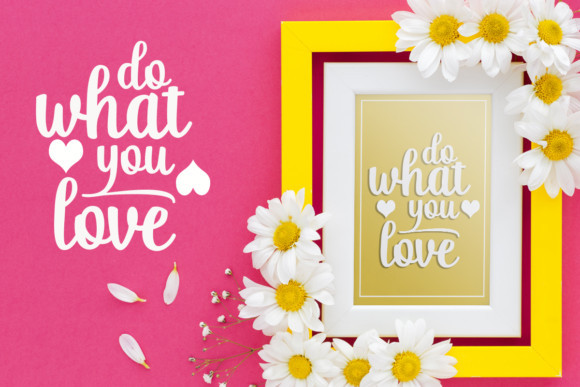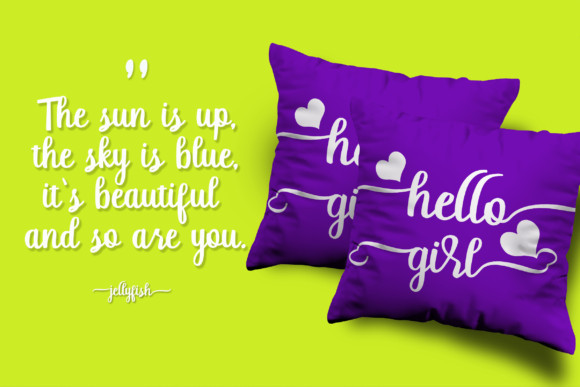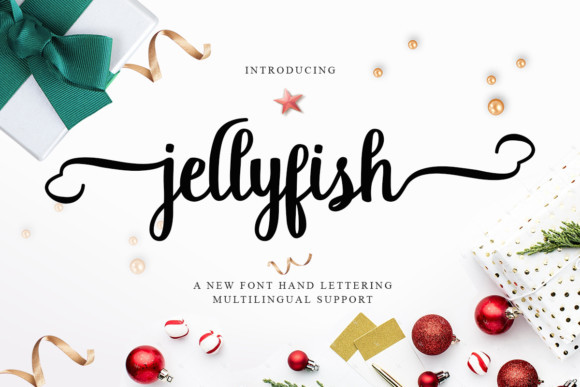
Jellyfish Font
Jellyfish is a lovely font that combines copperplate and contemporary styles, and features a dancing baseline. It is perfectly suited for a wide variety of projects!